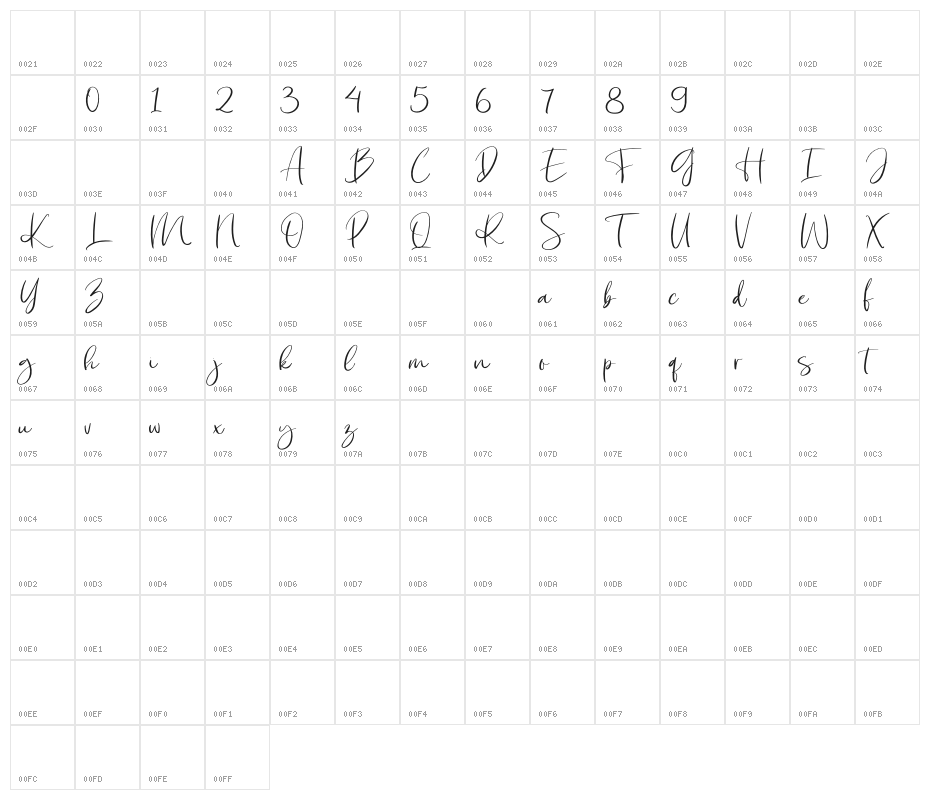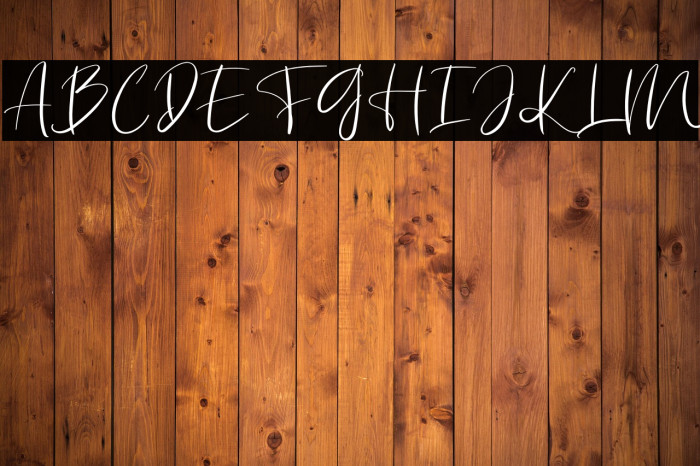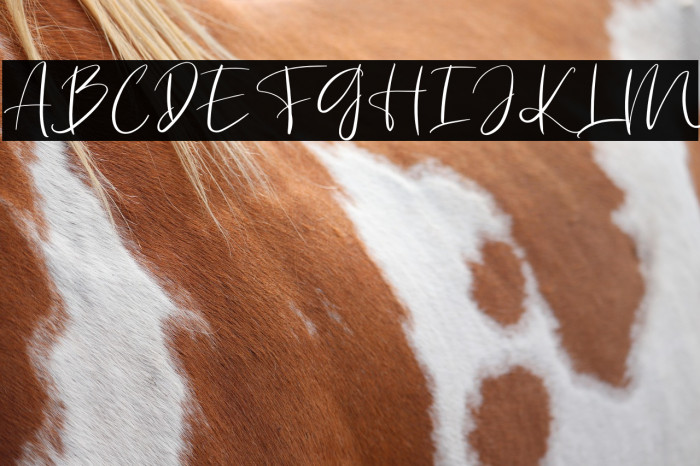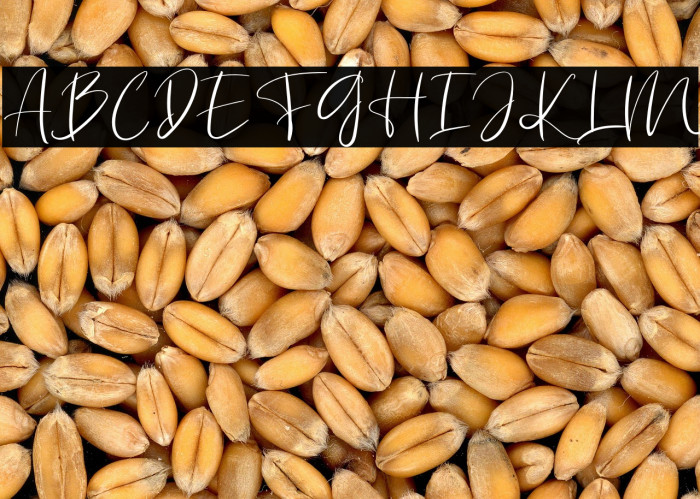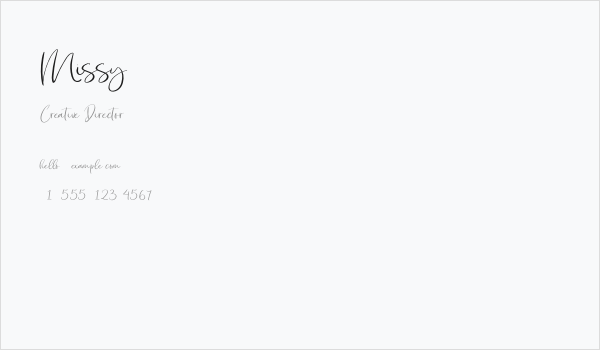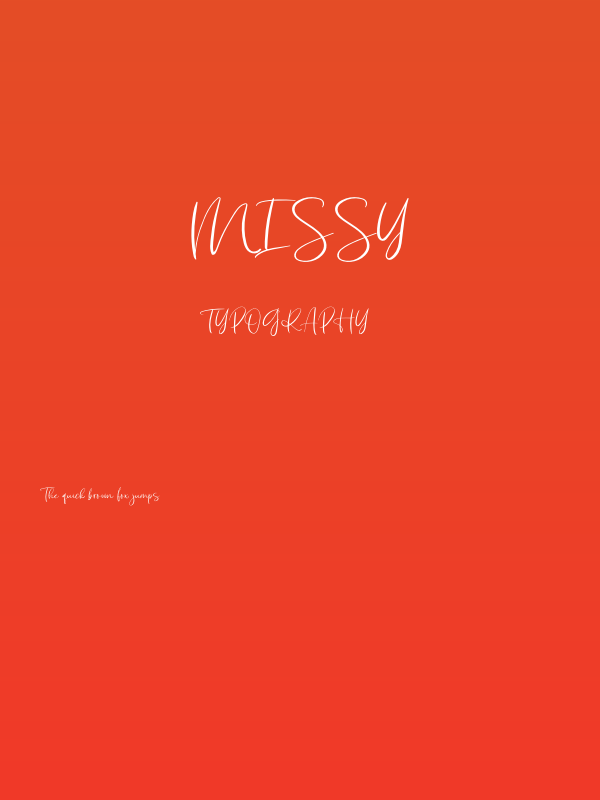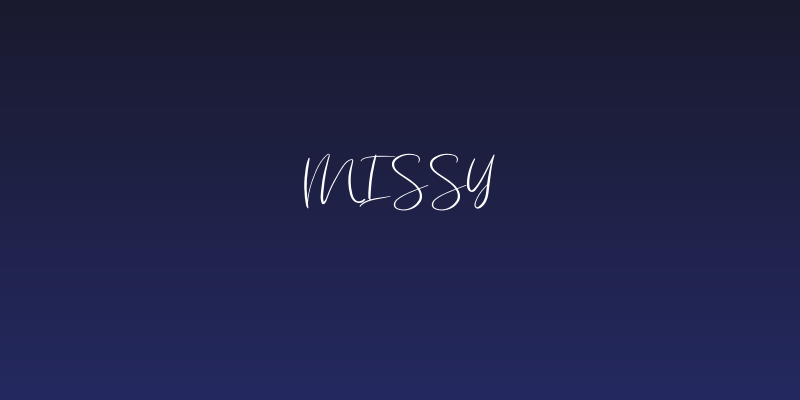
Missy Font
Missy Description
This font features a flowing, cursive style that exudes elegance and sophistication. The uppercase letters are tall and slender, with graceful loops and swirls that add a touch of whimsy. The lowercase letters maintain a consistent flow, with smooth connections between each character, creating a harmonious and fluid appearance. The numbers are similarly styled, with a slight slant that complements the overall cursive theme. Special characters are thoughtfully designed to match the aesthetic, ensuring a cohesive look across all text elements. The font's delicate strokes and artistic flair make it ideal for projects that require a personal, handwritten touch.
| Overall Style | Elegant, Artistic |
| Proposed Projects | Ideal for wedding invitations, greeting cards, personal branding, and elegant stationery. |